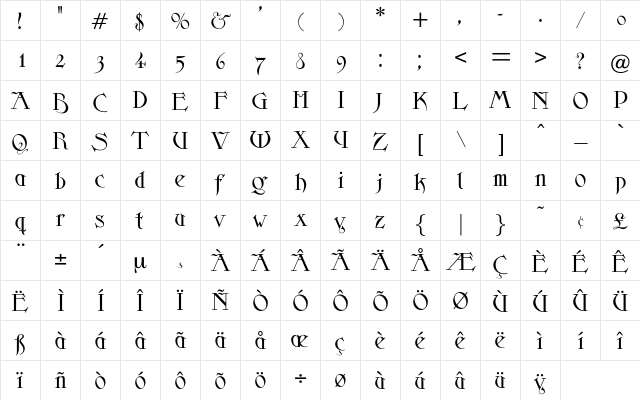
Lillehammer Regular
Design Context for Lillehammer Typeface
Lillehammer is a composed and adaptable typeface that performs quietly and consistently across a wide range of design contexts.